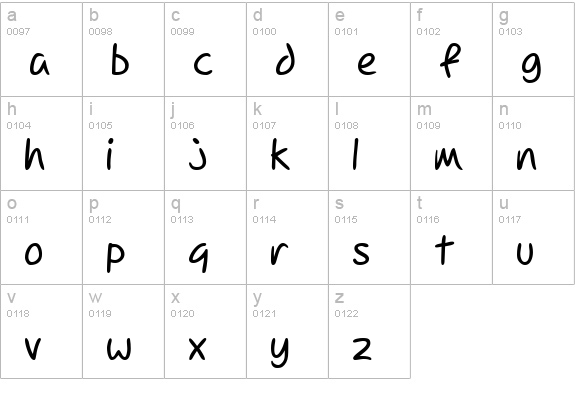
Dupree Font Details
Dupree font is a versatile and stylish typeface that exudes elegance and sophistication. With its clean lines and modern aesthetic, Dupree is the perfect choice for a wide range of design projects, from branding to editorial design. The font features a unique blend of classic and contemporary elements, making it a truly timeless addition to any designer's toolkit. What sets Dupree font apart is not just its striking appearance, but also the fact that it is completely free to download. That's right - you can elevate your design projects with the beauty of Dupree without having to spend a penny. Simply head over to FontsMarket.com to access this stunning font and start creating with ease. Whether you're working on a branding project, a poster design, or a website layout, Dupree font will bring a touch of class and sophistication to your work. Download it now and see for yourself the magic of Dupree font.